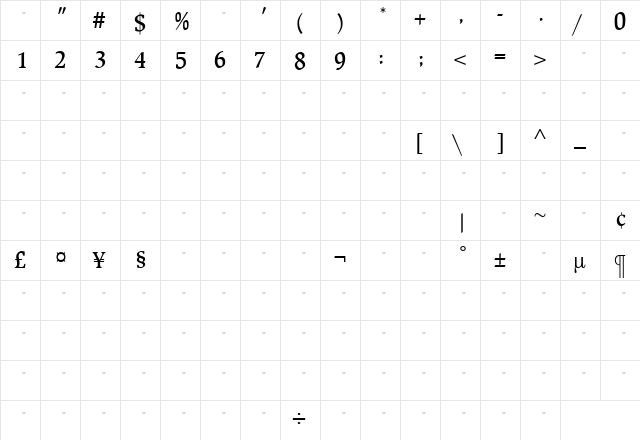
BeckenhamMediumTab Roman
Design Context for BeckenhamMediumTab Typeface
BeckenhamMediumTab is a composed and adaptable typeface that performs quietly and consistently across a wide range of design contexts.